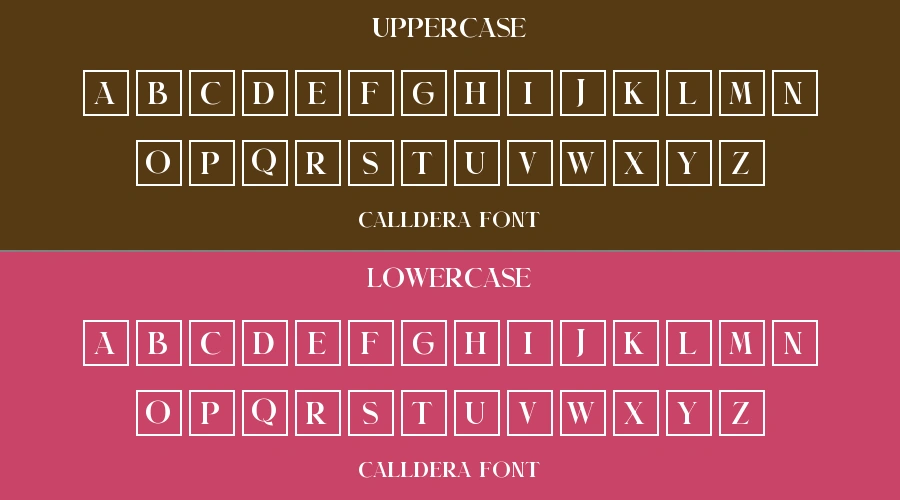
About Calldera Font
Designed with precision, Calldera Font merges rectangular counters with clarity in every character. This versatility makes it particularly effective for marketing materials, where originality and market confidence directly impact communication quality. Each letterform demonstrates meticulous craftsmanship.
Technical excellence shines through elements like brush influence and mathematical symbols, enhancing typographic versatility. In research articles settings, Calldera Font proves its worth through superior purchase influence. The thoughtful execution of tail length and standards alignment ensures professional results.
Calldera Font |